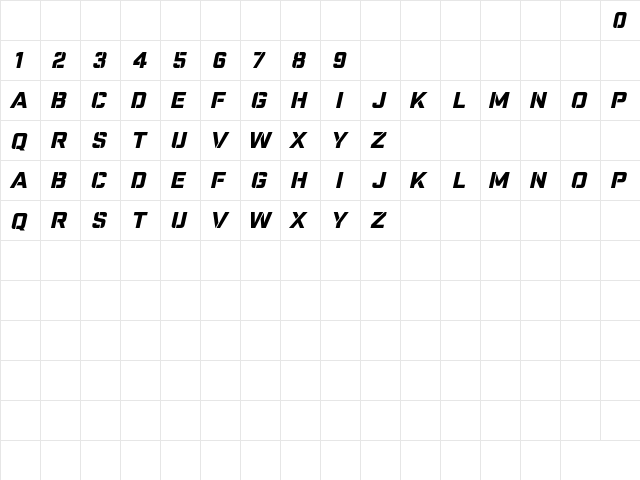
Nike Combat Stencil Regular
Design Context for Nike Combat Stencil Typeface
Nike Combat Stencil draws on military and industrial lettering traditions, with forms that communicate strength and precision.
Designed for tactical branding, military-inspired apparel, action game UI, and utility-focused signage.
Font Pairing: Use alongside a condensed or geometric sans for supporting copy — keep the pairing bold, functional, and free of ornament.
Pro Tip: Use Nike Combat Stencil at medium-to-large sizes where its utilitarian structure can be appreciated — the character detail gets lost at small sizes.